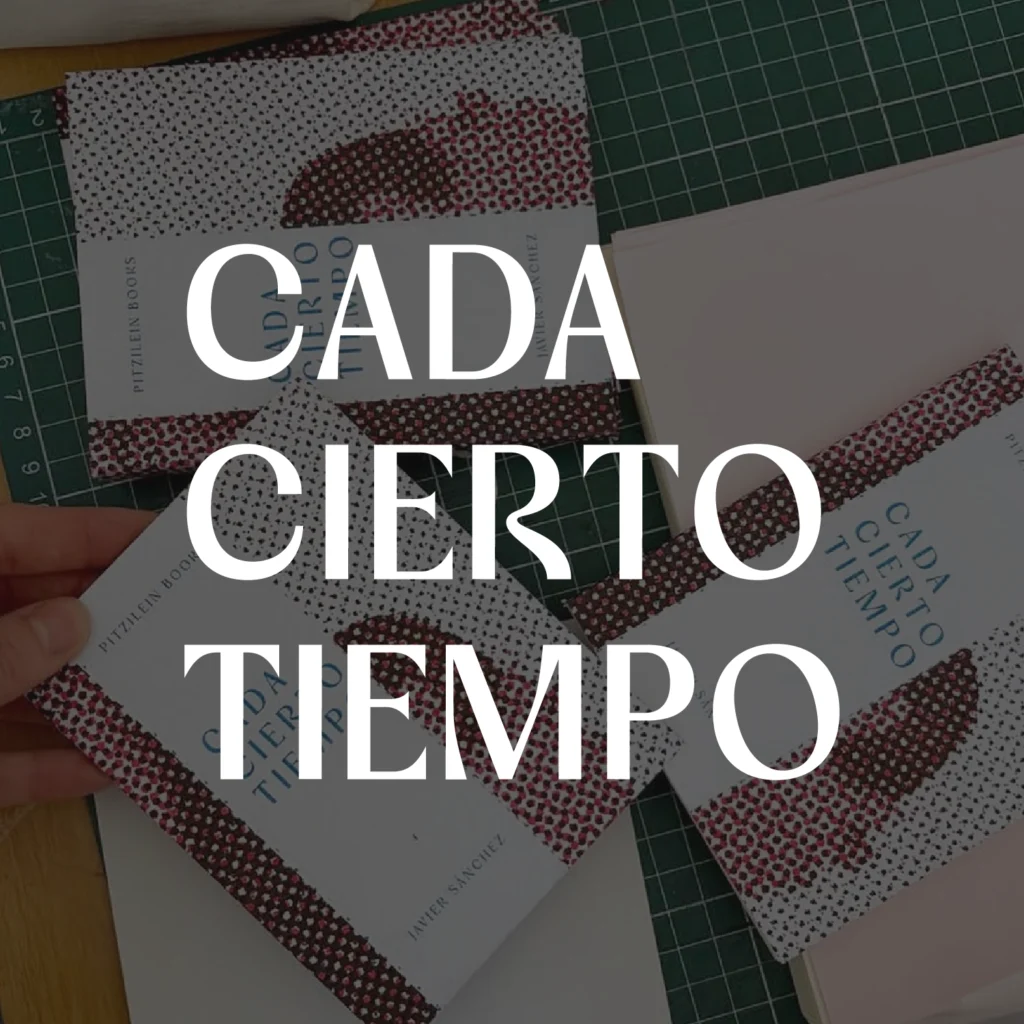
FONT IN USED: VOGERA
“Cada Cierto Tiempo” is a visual storytelling project by Javier Sánchez that captures intimate everyday moments through a cinematic and emotionally reflective perspective. Blending fine art photography with a quiet editorial atmosphere, the project evokes themes of memory, human connection, and personal reflection.
Set in Vogera, the typography enhances the project’s modern artistic tone with a refined editorial presence, bringing clarity and subtle emotion to the overall visual experience.